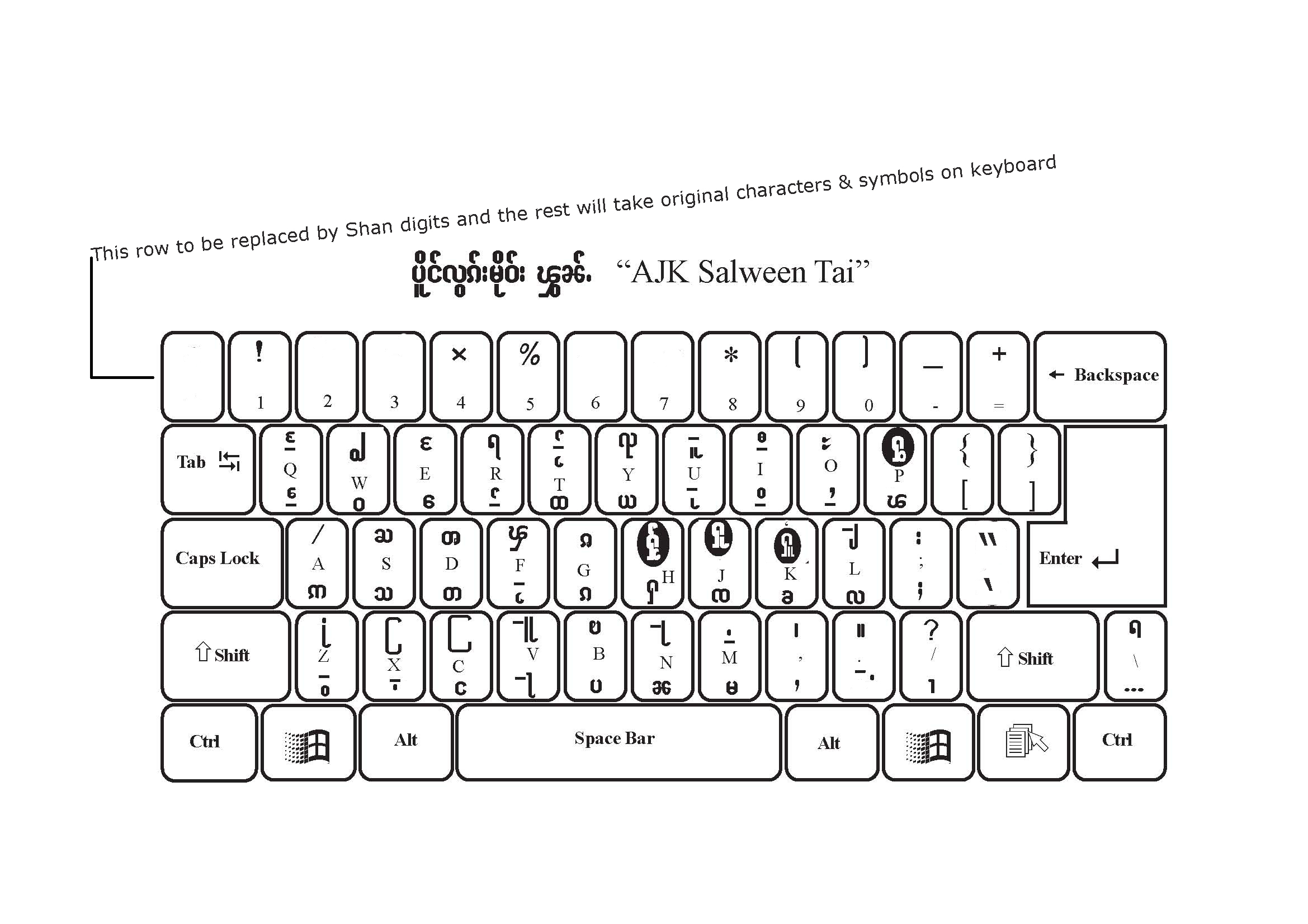
Before things really get started, we will want to make sure that everything
is planned in the right way. Here I will talk about a few Shan letters on
the proposal block and about the keyboards.
**
*A few Shan letters on the proposal block*
There are three letters Shan HA U+1081, Shan FA U+107E and Shan NA U+107C in
the block that should be readjusted for their proper shapes. The lower
shapes of HA and FA are too straight. The in between of the shape of Shan Na
is too close at the moment. Please refer to the font file "AJK Salween
Tai" I send as attached now for their proper and nice shapes. I got this
feedback when I showed the final proposal to some users.
**
*Keyboards*
For the keyboard layouts and their drivers etc., we want unique names for
them. We will prefer the names as (WILL IT BE OKAY? We use *TAI* here to
represent our real name by which we call ourselves, not Shan that is a
corruption of Burmese pronunciation of Siam - the present Thai.)
*Tai - AJK* (as AJK Salween Tai keyboard driver) and
*AJK Salween Tai* (as AJK Keyboard Design name. So its original name can be
used)
**
*Tai - SAI* (for Sai) and
*Sai *(as Sai Keyboard Design name. So its original name can be used)
**
*Tai - SHAN* (for B_ShanBB). For B_ShanBB, Sai Murngzuen and Sai Zin will
discuss for a few changes of the layout and also its name.
*Sai Keyboard layout* has been released for public by its designers and the
font designers themselves. We can confirm that it can be used as it is. (If
I have a chance to discuss with some of them about any change that they want
to make, I will let you know. Without their notice, we can't make any change
to this.)
For *AJK Salween Tai keyboard*, I have contacted its desinger and we
have decided making a few changes. See the *JPEG file "AJKKBL Revised"* for
those changes (in comparison with the previous one that I sent) and this can
be confirmed for its use. For the remaining less used alphabets, you can put
them with dead keys.
I remember you have talked about sorting system in Shan. Yes, there is. It's
based on alphabets and the vowels used just as in other languages. We will
talk about this after I can make contact and talk with the Author of a Shan
dictionary later. (I am afraid you will sort it wrongly for any purpose.)
Are the letter sizes of your Anawratha font the same as that of Roman
Alphabets for the standard? Most fonts, even Zawgyi, are smaller in size
than Roman Alphabets.
Can you provide now all the codes that will be used by you for the keyboard
and font so that our font desingers can start designing different fonts or
readjusting their existing fonts?
> Hello Khwann Tai,
>
> It is my experience of developing MyMyanmar Unicode System (for
> Myanmar Language) that Languages in Myanmar Script blocks of Unicode
> Standards are not conveniently used with non-intelligent keyboard
> layouts created with Microsoft Keyboard Layout Creator. For example, e-
> vowel rearrangement will not work on them. We need to use KeyMan in
> the past. Now, I am developing completely new Input Method that I am
> trying to support all the Languages in our script block. If I can get
> enough information, I will create Shan Input Method supporting
> Spelling Checking, Word Breaking, Romanization, etc. This is far
> better than Keyboard Layout Driver. My conclusion is that it is very
> necessary to work on Software after we get proper Unicode Points or
> otherwise it will not make any difference than using legacy fonts/
> Keyboard Layouts.
> all three of them in my softwares. About Anawrahta Font, please don't